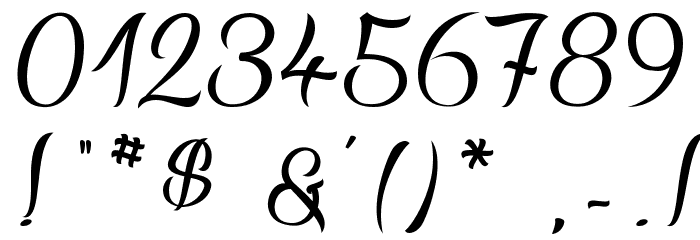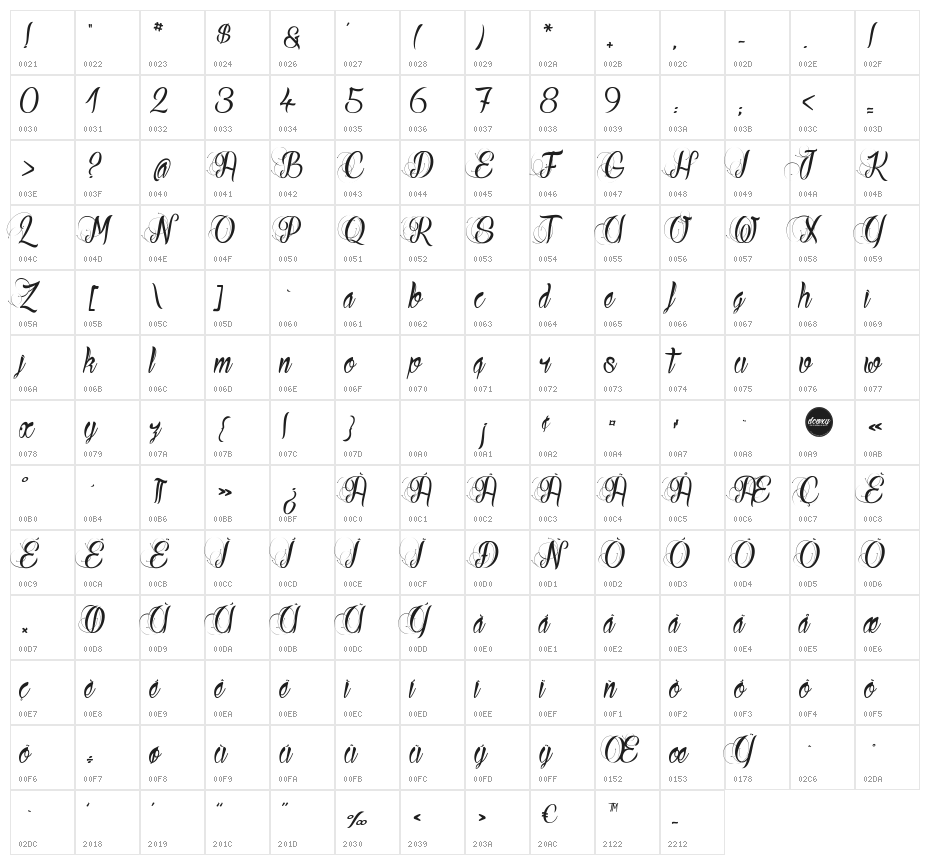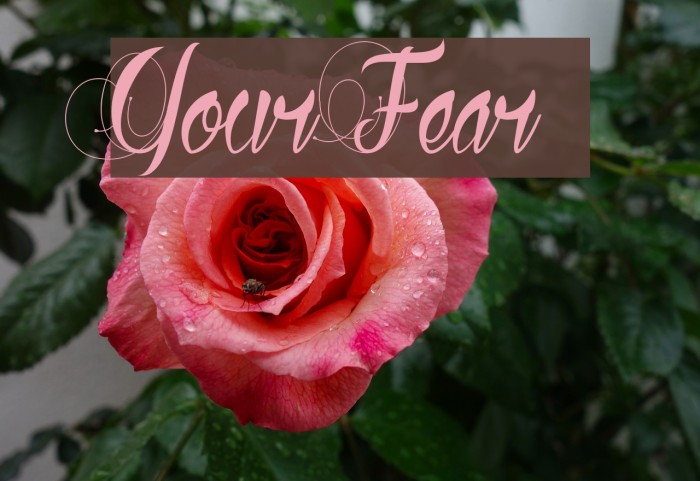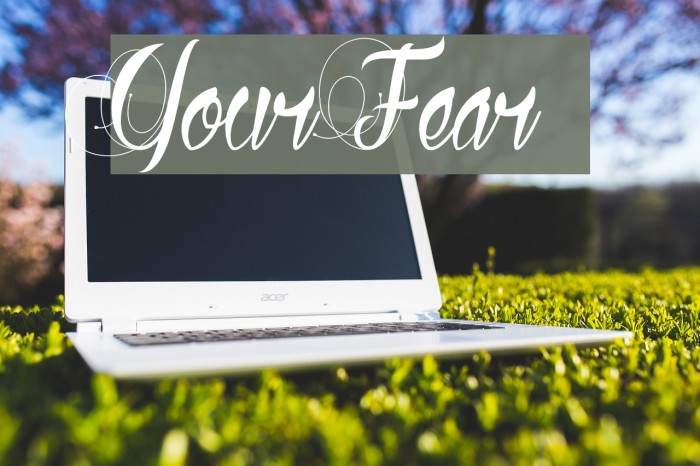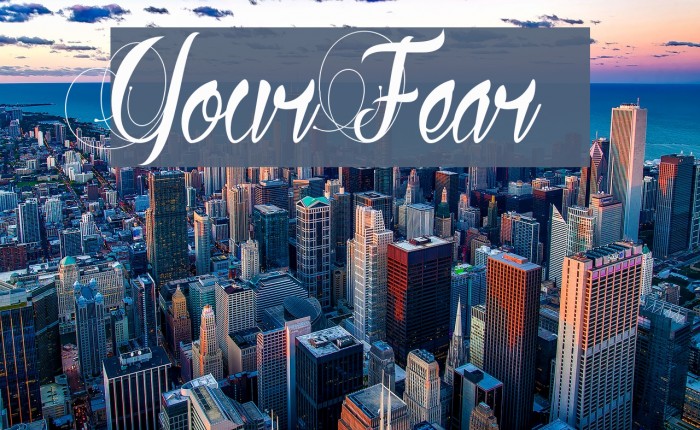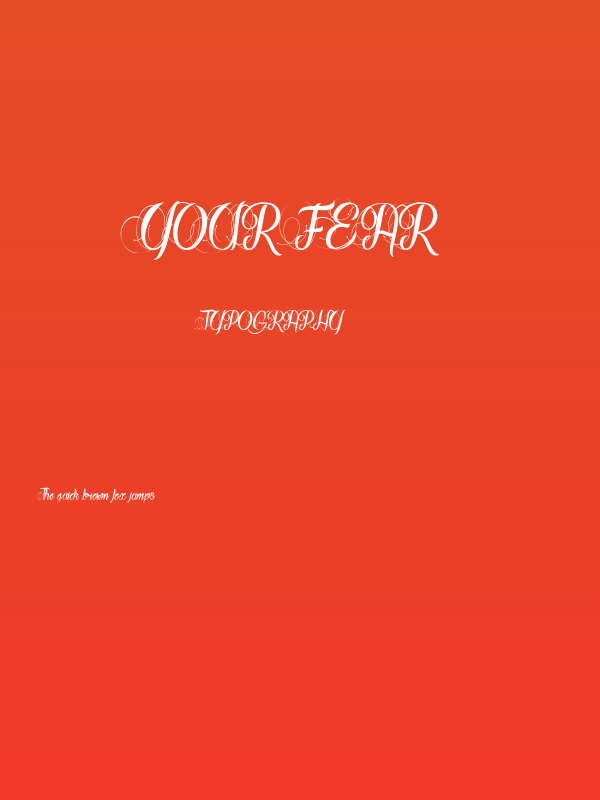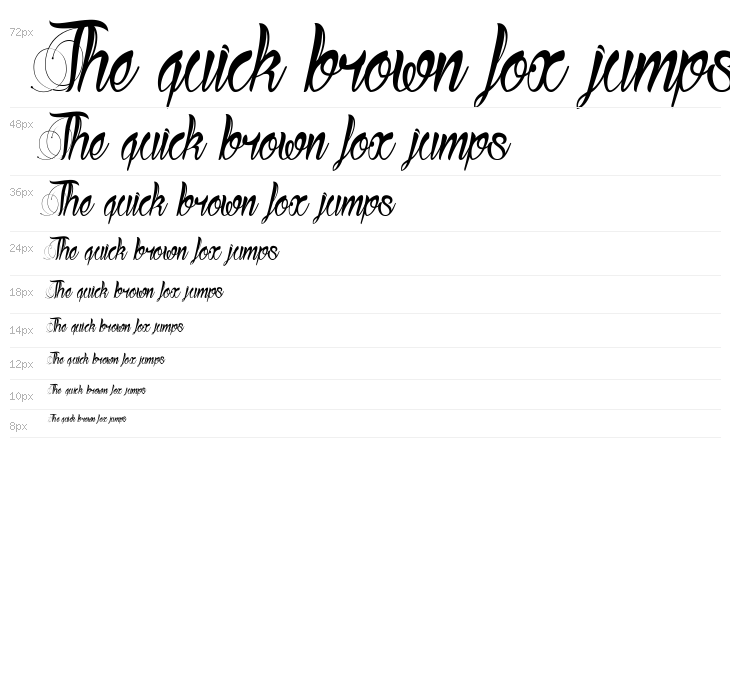
Your Fear Font
Your Fear Description
This font exudes an elegant and sophisticated flair, characterized by its intricate and flowing script style. The uppercase letters are adorned with elaborate swirls and flourishes, creating a sense of grandeur and formality. The lowercase letters maintain a smooth and connected cursive appearance, adding to the overall fluidity of the design. The numerals are stylishly crafted, maintaining the same graceful curves as the alphabet. Special characters are seamlessly integrated, enhancing the font's versatility. The overall aesthetic is both decorative and refined, making it suitable for projects that require a touch of elegance.